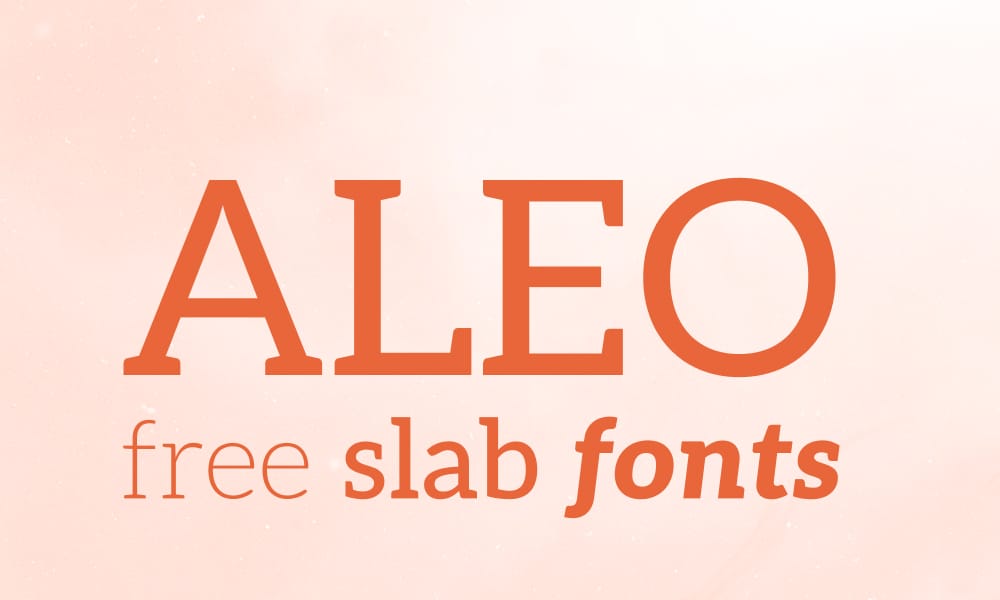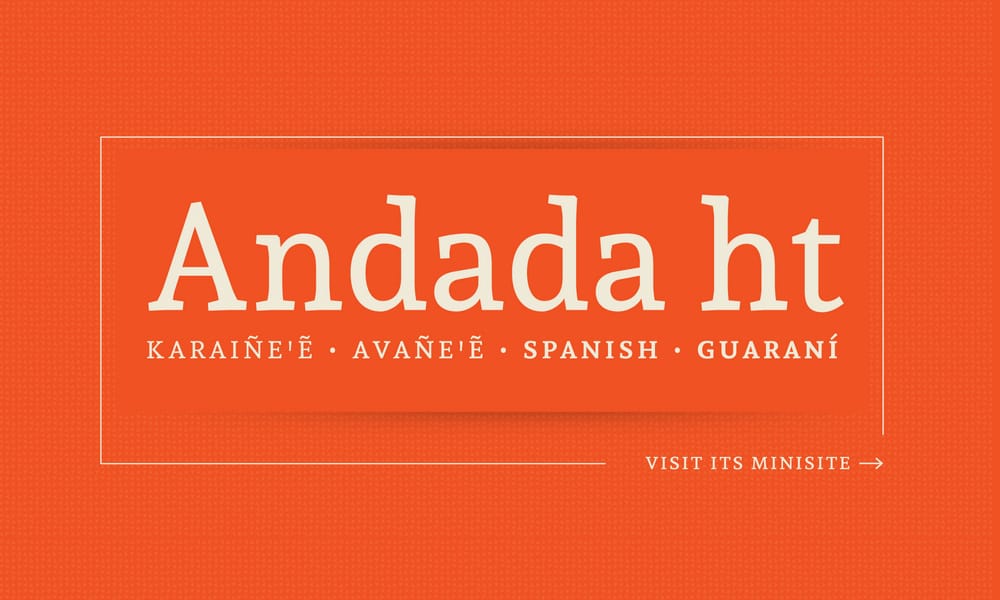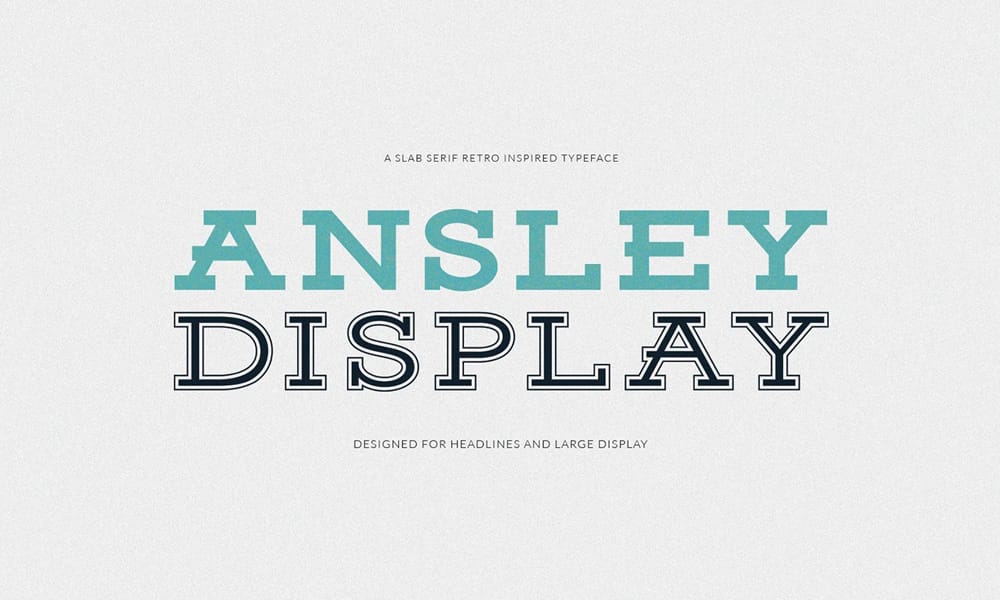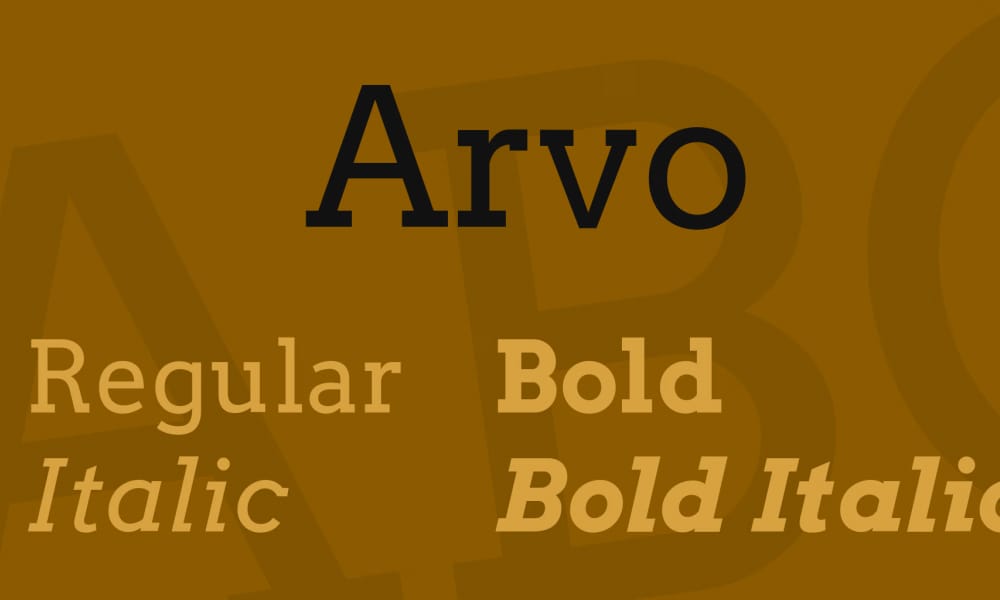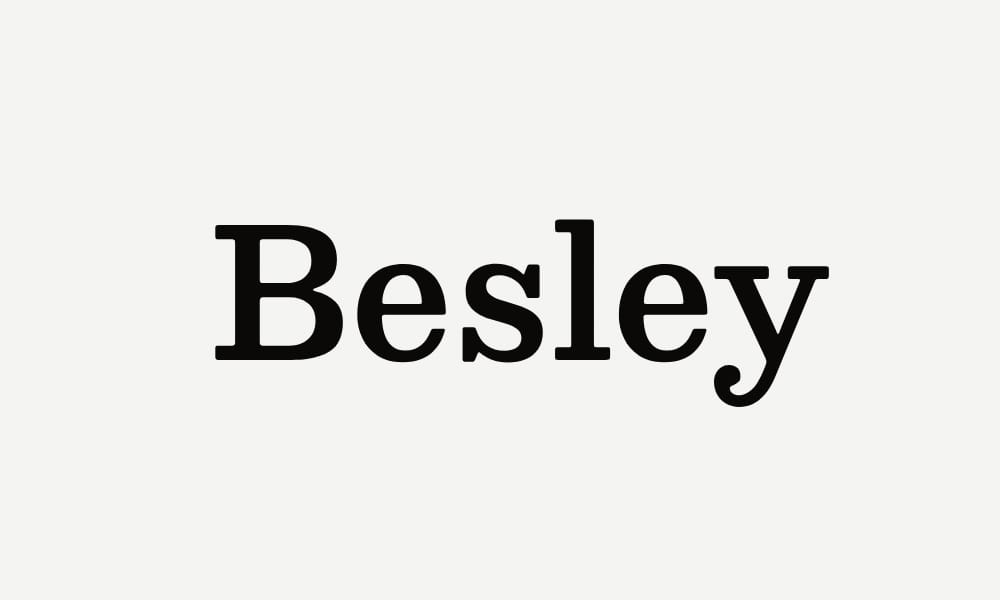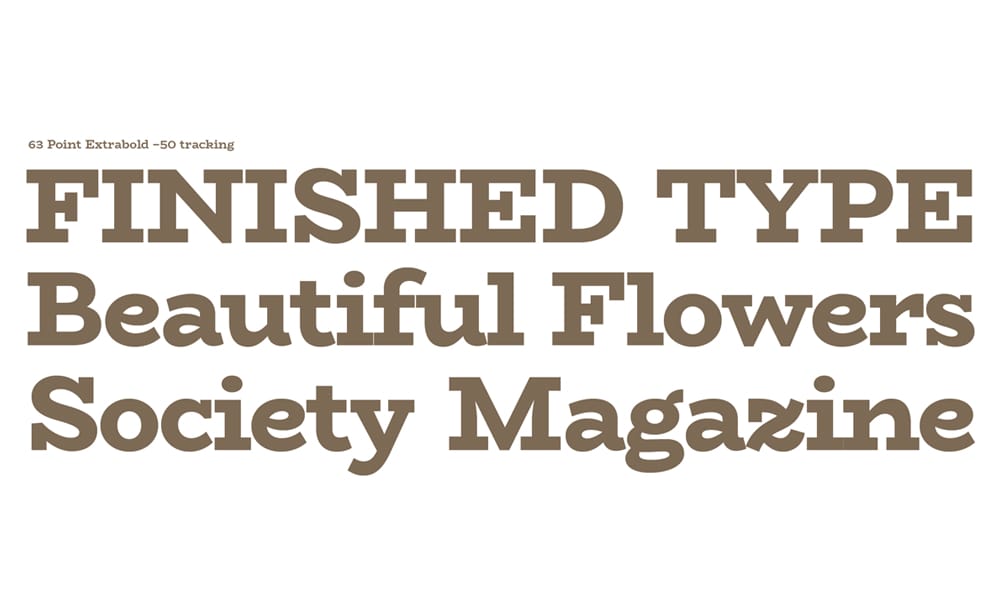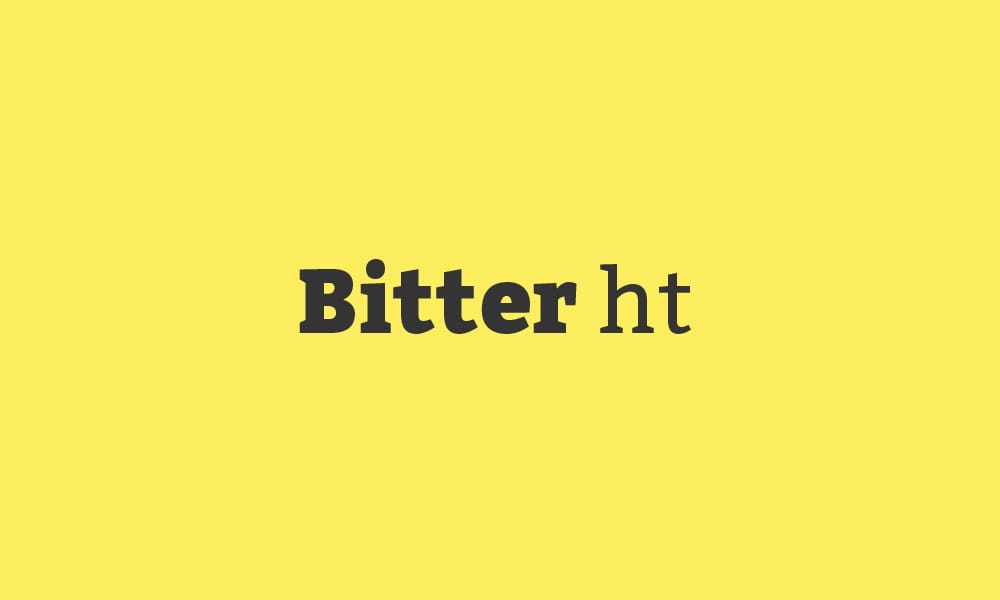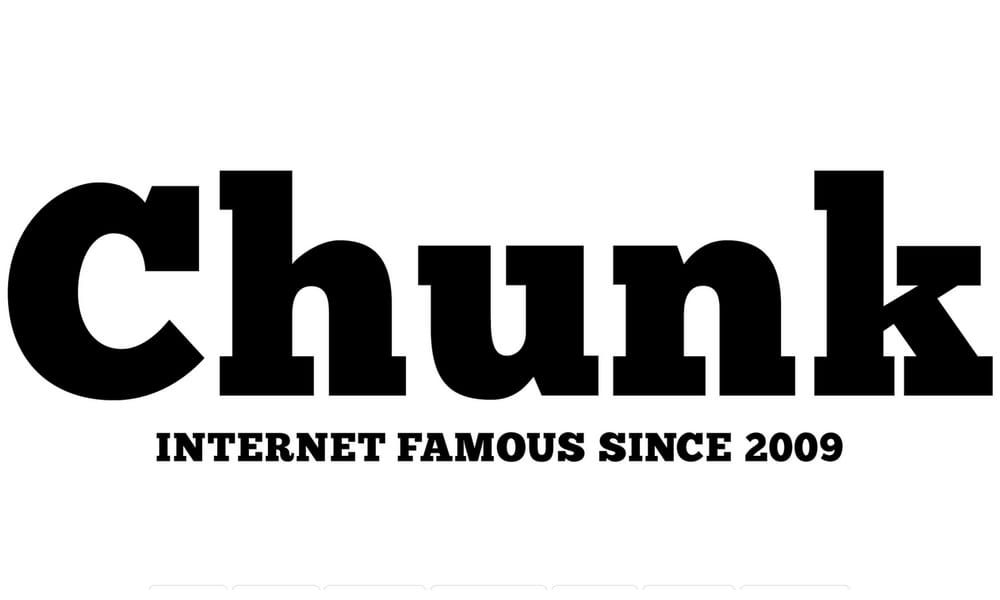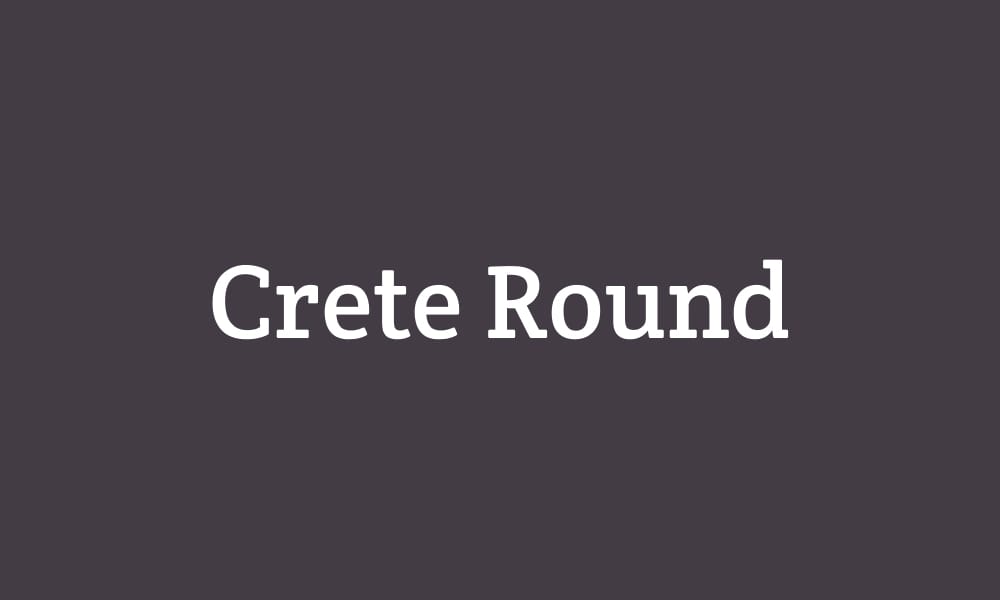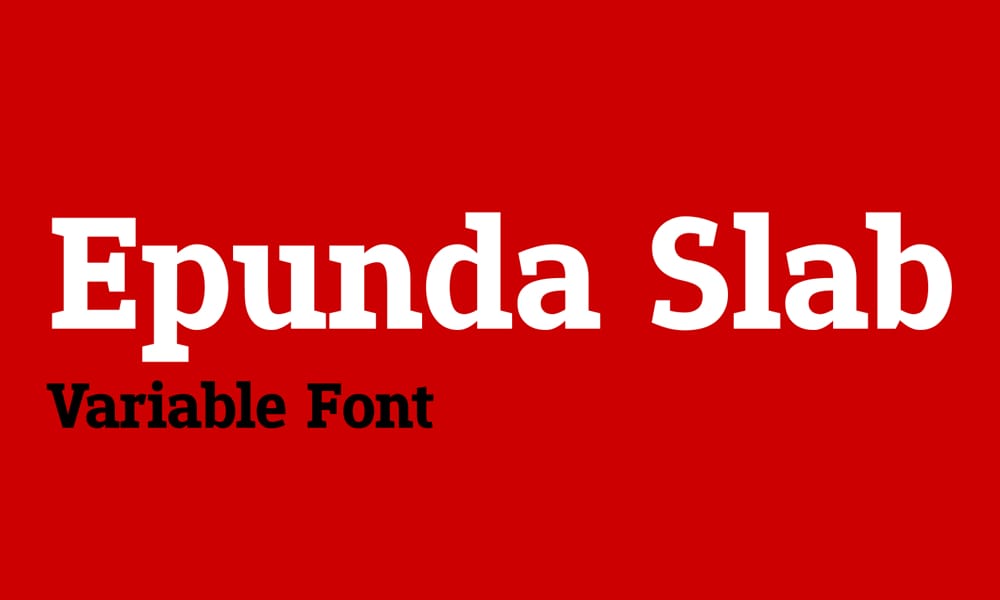
Best Free Slab Serif Fonts For Designers (2025)
Ever feel like your designs are missing a backbone? You’ve got the layout, the colors are perfect, but the typography just feels… weak. Finding a font that’s both strong and stylish without costing a fortune can be a huge headache. That’s where a great slab serif comes in. To save you the endless searching, we’ve curated a definitive list of the best free slab serif fonts available today. These aren’t just random typefaces; they’re powerful, versatile, and chosen by designers for their ability to add character and authority to any project.
To make it easier to find what you need, we’ve grouped them by their ideal use case.
The Workhorses: Best Slab Serifs for Readability & Body Text
These fonts are built for clarity and comfort, making them perfect for long-form reading on screen or in print.
Roboto Slab
As the slab serif counterpart to the wildly popular Roboto, Roboto Slab is a workhorse font that delivers incredible readability on screen. It has a geometric skeleton but features open curves that make it feel friendly and natural.
• Best For: UI & Web Body Text
• Vibe: Modern, Friendly, Reliable
• Pairs Well With: Roboto, Open Sans, Lato
Merriweather Typeface
Another excellent font designed for on-screen reading, Merriweather has a classic, elegant feel. Its letterforms are condensed, allowing for more text to fit on a line without sacrificing clarity.
• Best For: Long-form Articles, E-books
• Vibe: Classic, Readable, Elegant
• Pairs Well With: Merriweather Sans, PT Sans
Bitter ht
Designed specifically for comfortable reading on any device, Bitter ht has a generous x-height and subtle, thick serifs that help anchor the eye, reducing fatigue during long reading sessions.
• Best For: Digital Publications, Blogs
• Vibe: Sturdy, Approachable, Clear
• Pairs Well With: Source Sans Pro, Open Sans
Vollkorn Typeface
Vollkorn is a quiet and modest slab serif designed to be a reliable workhorse for body text. It’s unassuming yet confident, making it perfect for conveying information clearly and effectively.
• Best For: Body Text, Print
• Vibe: Classic, Modest, Authoritative
• Pairs Well With: Cabin, PT Sans
The Headliners: Best Bold Slab Serif Fonts for Impact
When you need to grab attention, these are the fonts you turn to. They are perfect for logos, headlines, and posters.
Chunk Five
If you need a font with undeniable presence, Chunk Five is your go-to. This font doesn’t whisper; it shouts from a vintage American Western newspaper headline.
• Best For: Headlines, Logos, Posters
• Vibe: Retro, Bold, Industrial
• Pairs Well With: League Gothic, Bebas Neue
Ansley Display Font
Inspired by retro typography, Ansley Display is designed specifically for headlines and large displays. It has a strong, condensed form and inline detailing in some of its styles.
• Best For: Display, Logos, Apparel
• Vibe: Vintage, Confident, Strong
• Pairs Well With: Montserrat, Raleway
Montagu Slab
Montagu Slab offers a contemporary and sharp look. Its clean lines and balanced proportions make it a sophisticated choice for headings, particularly in digital design.
• Best For: Editorial Headlines, Web Headings
• Vibe: Sharp, Modern, Sophisticated
• Pairs Well With: Inter, Work Sans
BioRhyme Slab Serif Fonts
BioRhyme is a wide, chunky slab serif. Its extended forms give it a unique, almost playful rhythm, making it perfect for attention-grabbing displays.
• Best For: Creative Branding, Packaging
• Vibe: Playful, Quirky, Wide
• Pairs Well With: Poppins, Nunito Sans
The Modernists: Clean & Versatile Fonts for Web & UI
These fonts balance personality with professionalism, making them ideal for modern websites, apps, and corporate branding.
Zilla Slab Font
As Mozilla’s signature typeface, Zilla Slab is industrial, clean, and highly functional. It was designed to have a smooth rhythm and performs exceptionally well in user interfaces.
• Best For: UI/UX, Tech Branding
• Vibe: Industrial, Modern, Clean
• Pairs Well With: Fira Sans, Inter
Aleo
Aleo has a sleek, contemporary feel with semi-rounded details that give it a soft and approachable personality. It’s a great companion to the popular sans-serif Lato.
• Best For: Web Headings, Lifestyle Brands
• Vibe: Sleek, Approachable, Contemporary
• Pairs Well With: Lato, Open Sans
Arvo Font
Arvo is a geometric slab-serif known for its clarity and stability. It’s a highly versatile font that works well in both print and on screen.
• Best For: Web & Print, General Use
• Vibe: Geometric, Stable, Versatile
• Pairs Well With: Poppins, Montserrat
Besley
Besley is a fantastic all-rounder. It has a classic warmth that feels both trustworthy and modern, making it incredibly versatile for both headlines and body text.
• Best For: Branding, Editorial Design
2. What’s the main difference between a slab serif and a regular serif?
The key difference is the serifs themselves (the small feet at the end of the strokes). In traditional serifs (like Times New Roman), the serifs are bracketed and vary in thickness. In slab serifs, the serifs are thick, block-like, and typically unbracketed, giving them a bolder, more structured appearance.
3. What sans-serif font pairs well with a modern slab serif like Zilla Slab?
To complement Zilla Slab’s modern, techy feel, a clean and geometric sans-serif like Montserrat